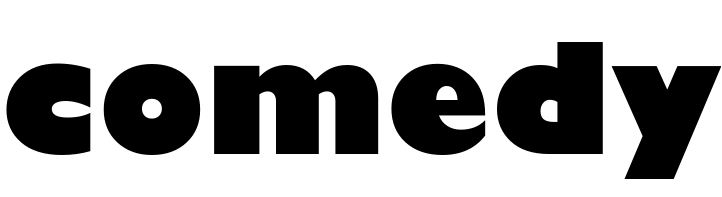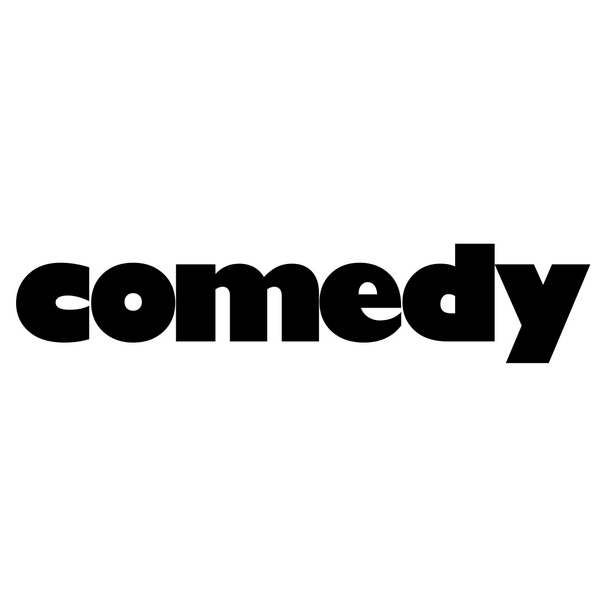
Comedy Network Font
ComedyThe Comedy Network is a Canadian English language specialty channel that primarily airs comedy programming. It features a mix of sitcoms, sketch comedy, stand-up comedy, and other comedic content.
The network's wordmark likely employs Gill Sans Ultra Bold, a commercial font created by Eric Gill for Monotype in 1928. Further information about this font can be found here.